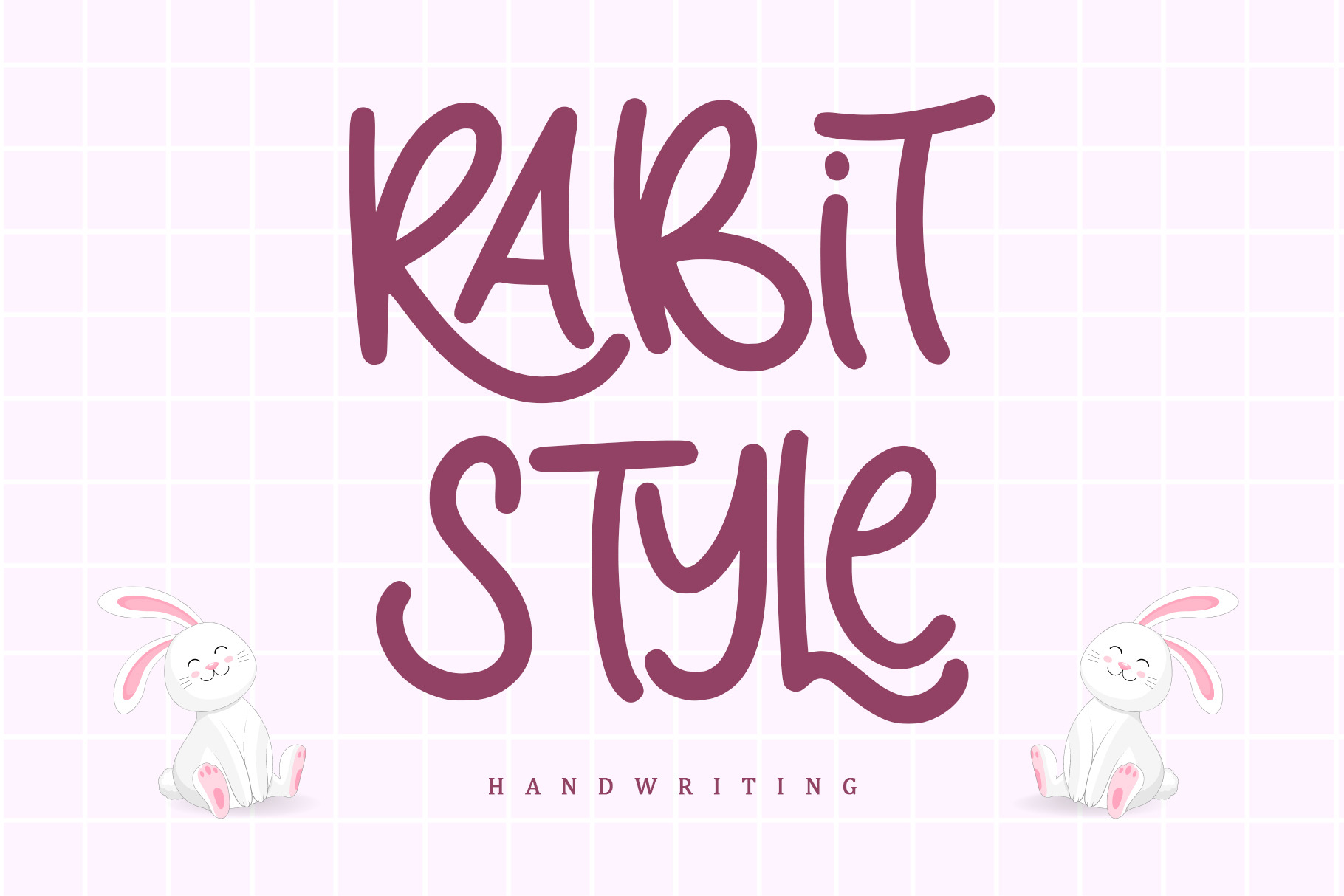
Rabit Style | Handwritten Font
Rabit Style is a quirky and sweet handwritten font. Whether you’re using it for crafting, digital designing, presentations or greeting cards making, it’s perfect!